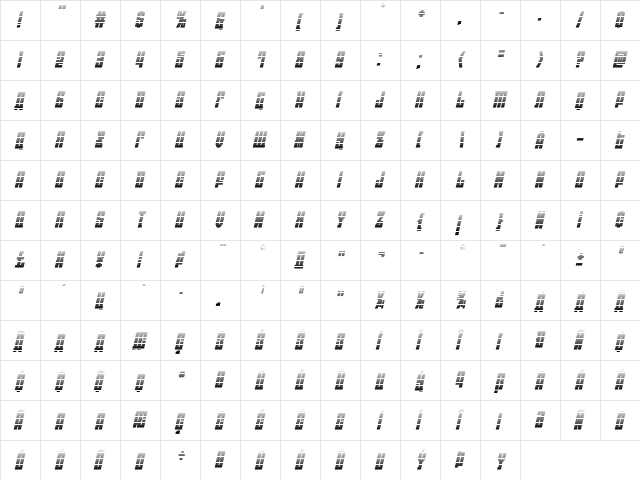
EAST-west Gradient Italic Italic
Design Context for EAST-west Gradient Italic Typeface
EAST-west Gradient Italic is a composed and adaptable typeface that performs quietly and consistently across a wide range of design contexts. Its italic angle brings a sense of urgency and motion to the letterforms.
Pro Tip: Try EAST-west Gradient Italic for annotation and caption copy alongside an upright companion — the contrast in angle creates a dynamic but ordered typographic system.